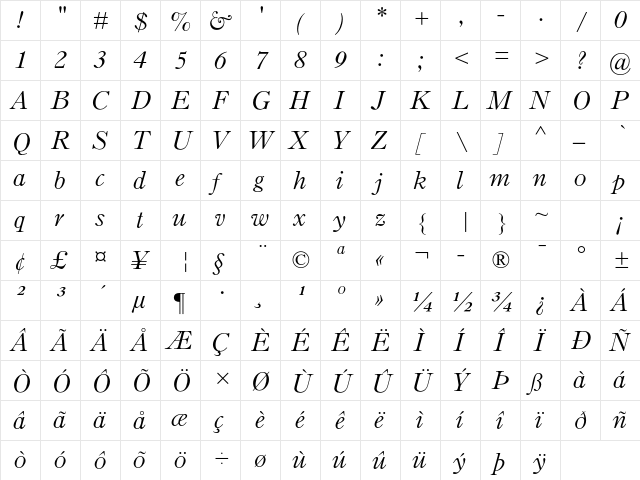
Binny Old Style MT Std Italic
Design Context for Binny Old Style MT Std Typeface
Binny Old Style MT Std is a composed and adaptable typeface that performs quietly and consistently across a wide range of design contexts. The slanted form adds forward momentum and visual energy.
Pro Tip: Try Binny Old Style MT Std for annotation and caption copy alongside an upright companion — the contrast in angle creates a dynamic but ordered typographic system.